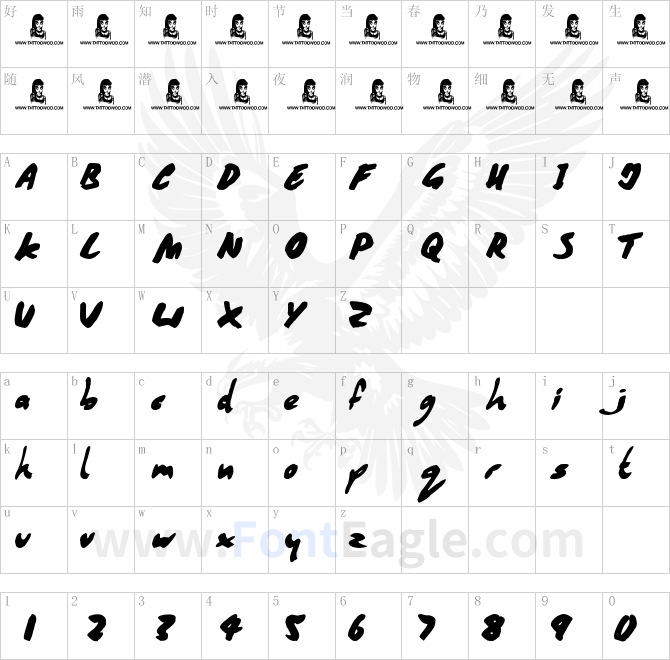
Coffee-Mocha is a great font, widely used in graphic design, single-page menu design, poster design and other fields, and is deeply loved by designers.Coffee-Mocha download.